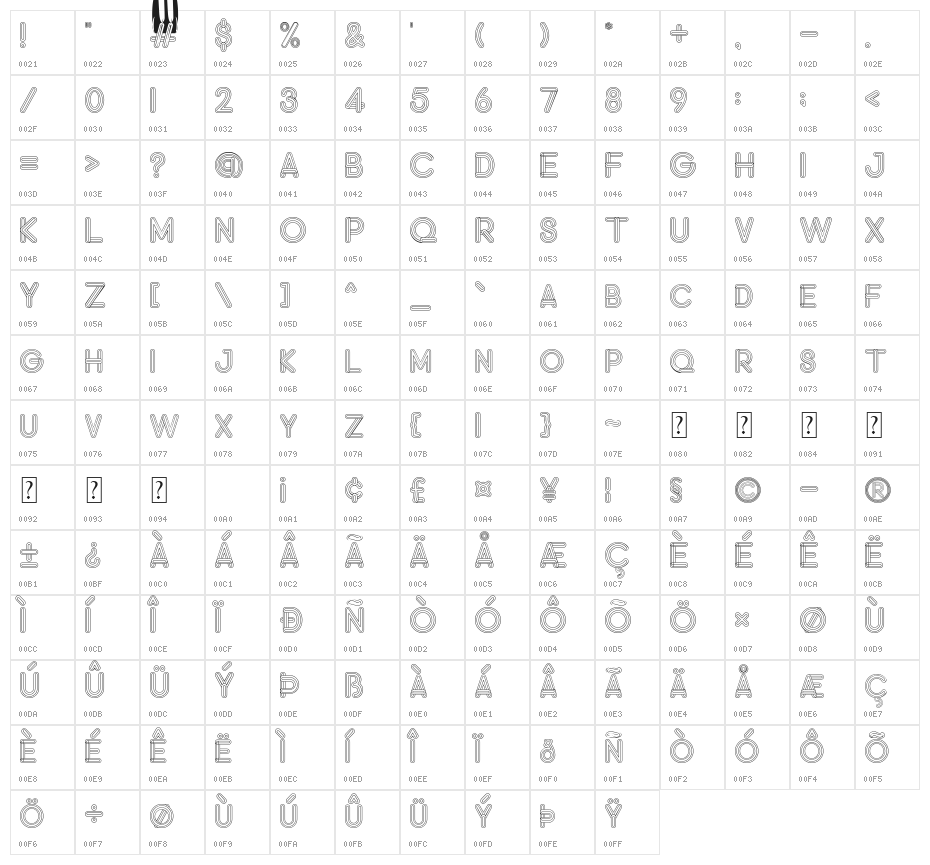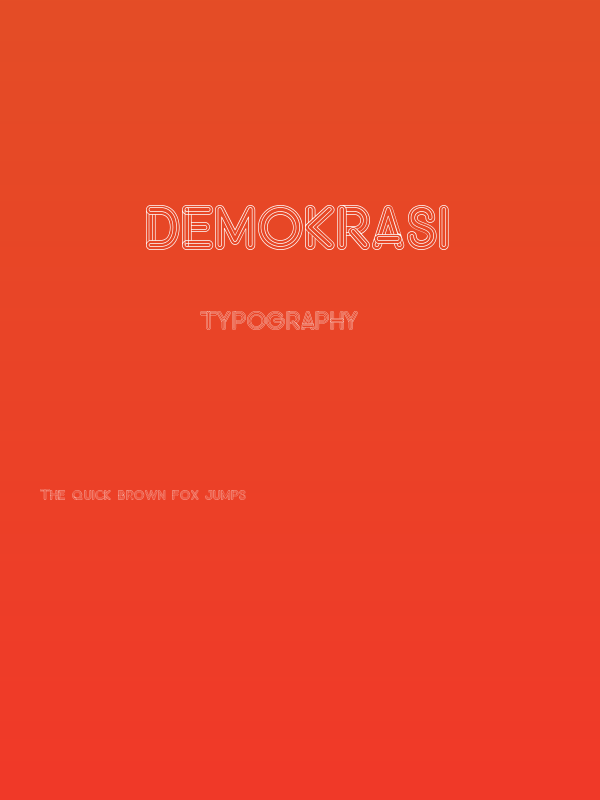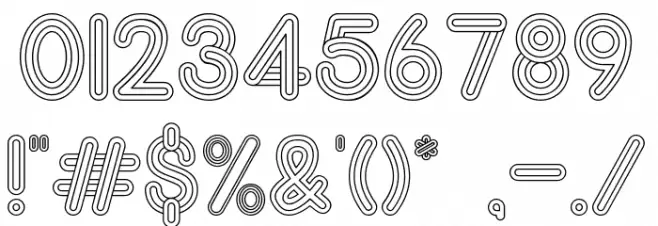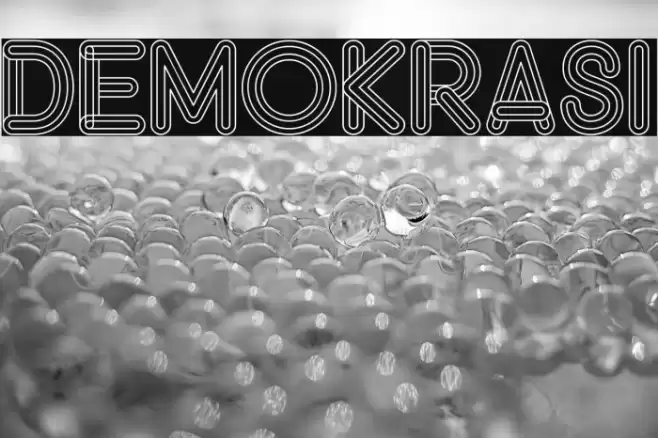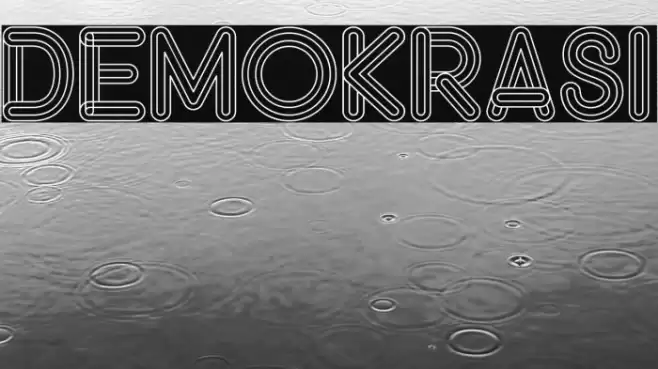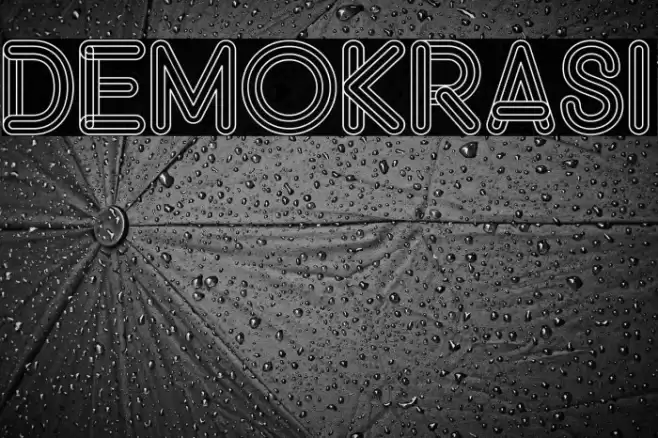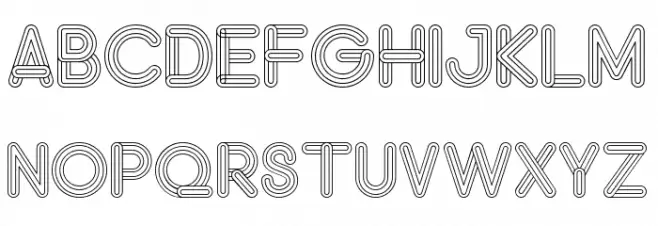
DEMOKRASI Font
DEMOKRASI Description
This font features a unique, layered outline style that gives each character a three-dimensional appearance. The letters are bold and geometric, with clean lines and a modern aesthetic. The consistent width and spacing between the strokes create a harmonious and balanced look. The font includes both uppercase and lowercase letters, numbers, and a variety of special characters, making it versatile for different design needs. Its playful yet structured design makes it suitable for creative projects that require a standout typeface.
| Use Case | Headlines, Logos |
| Proposed Projects | Ideal for posters, logos, branding, and any project that requires a striking, modern typeface. |